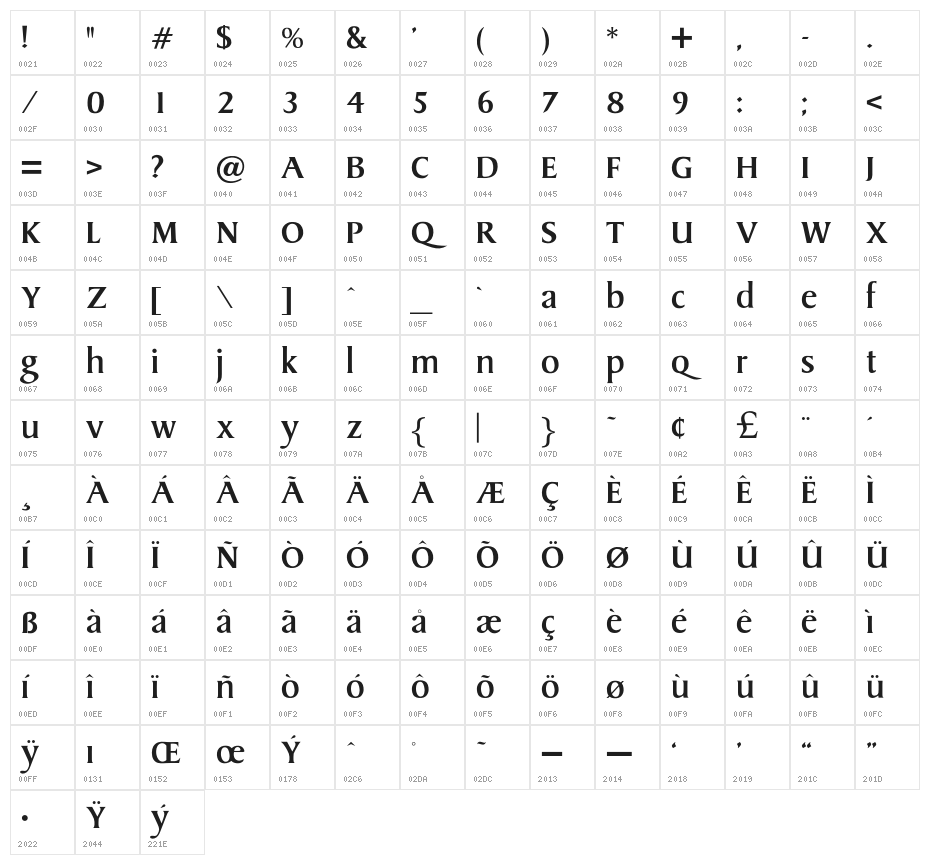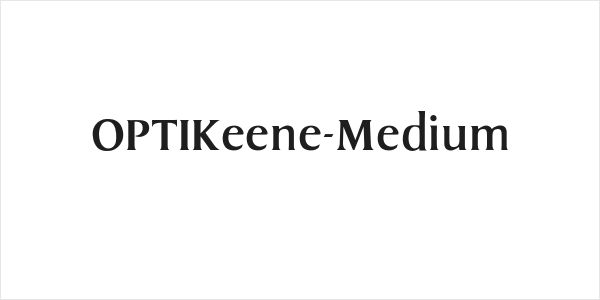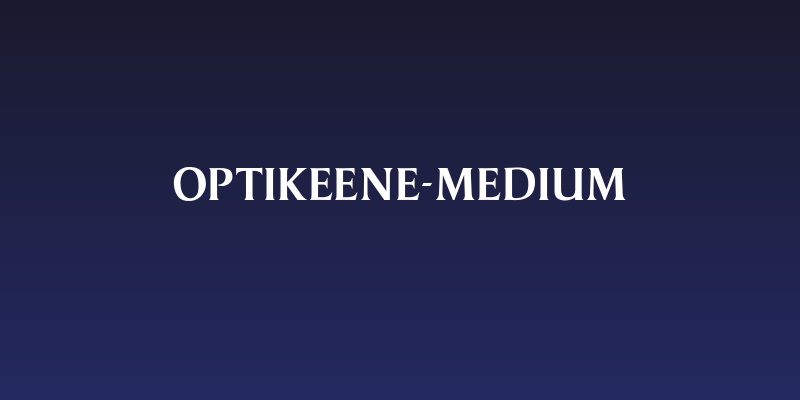
OPTIKeene-Medium Font
OPTIKeene-Medium Description
This typeface exhibits a classic serif style with a medium weight, offering a balanced and readable appearance. The serifs are pronounced, providing a traditional and formal look. The uppercase letters are bold and commanding, while the lowercase letters maintain a consistent and harmonious flow. The numerals are clear and distinct, making them suitable for both text and display purposes. Special characters are elegantly integrated, maintaining the overall aesthetic of the typeface. The font's design is versatile, making it suitable for a variety of applications where a classic and authoritative presence is desired.
Overall StyleClassic
Proposed ProjectsIdeal for editorial design, book covers, formal invitations, and branding projects requiring a classic touch.